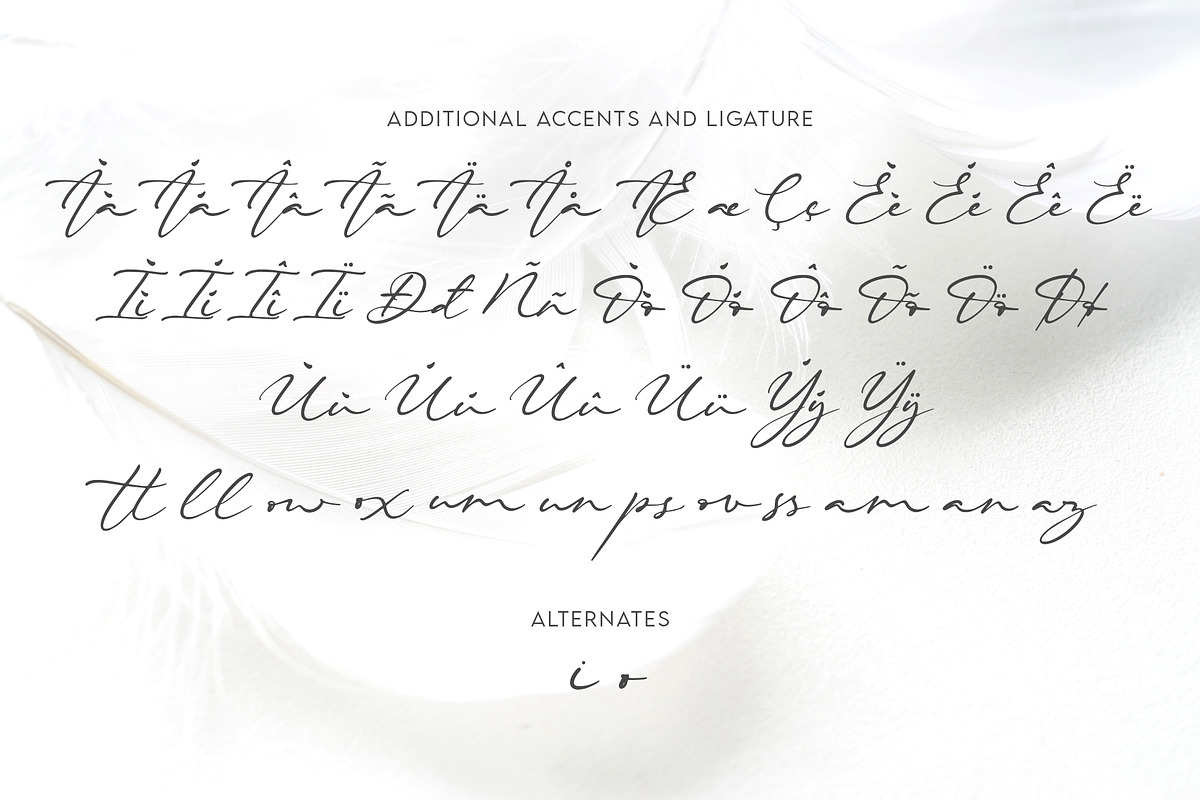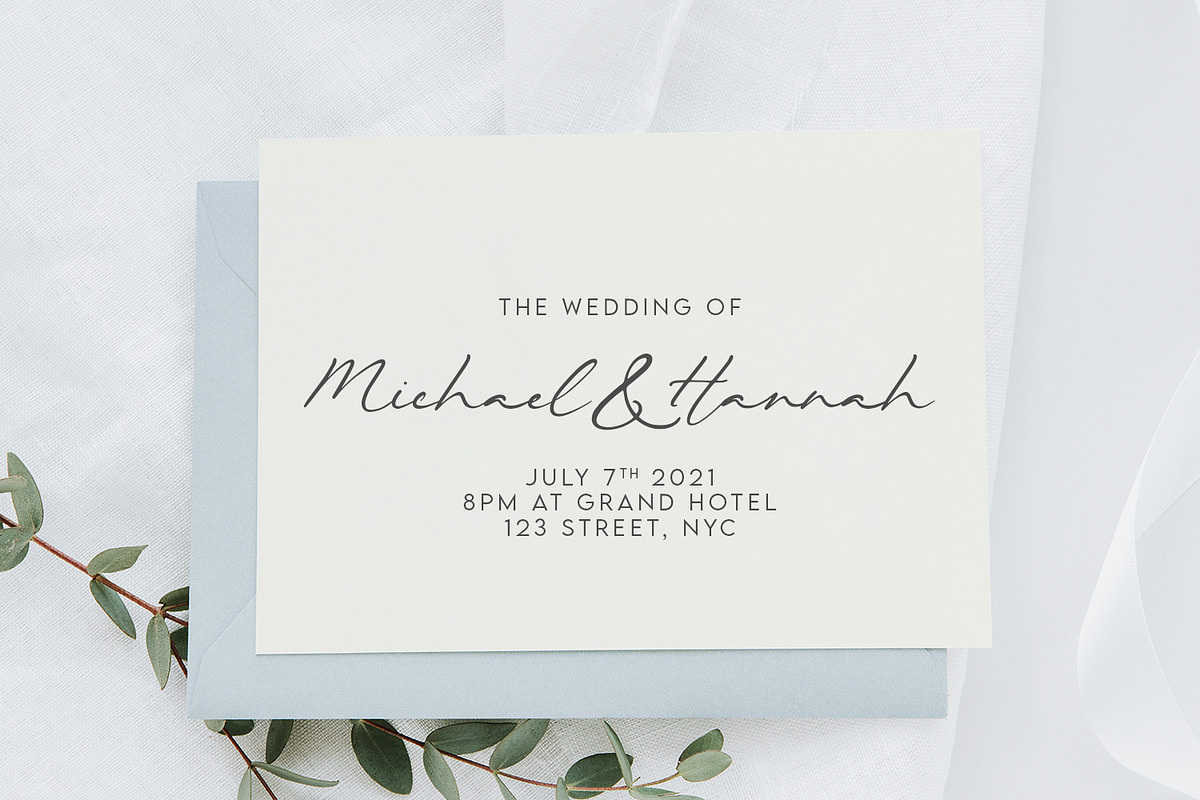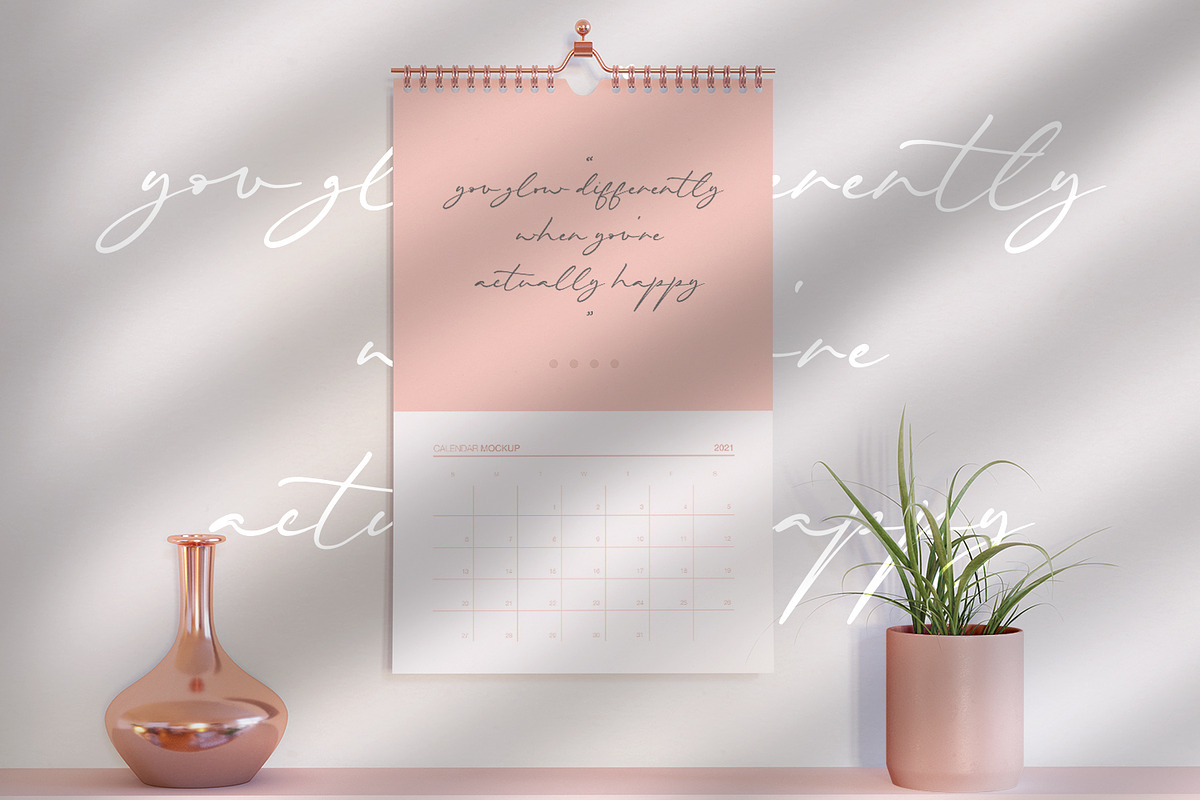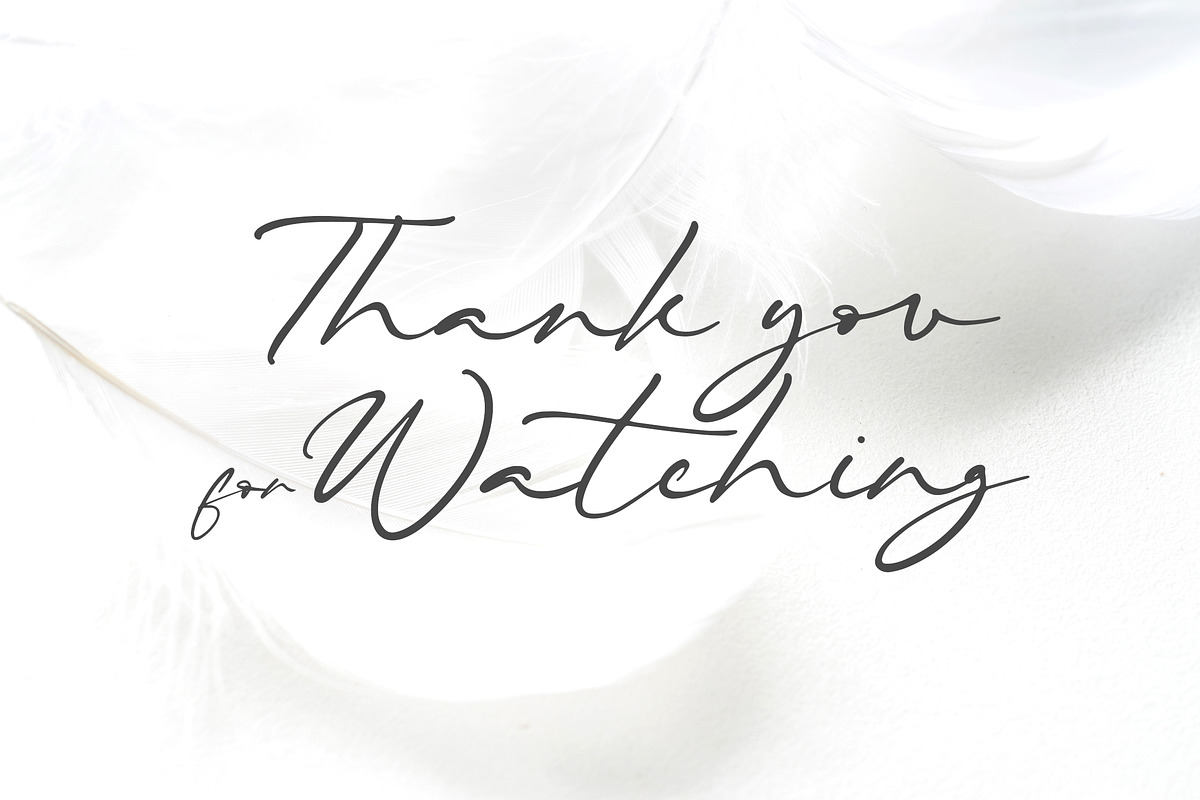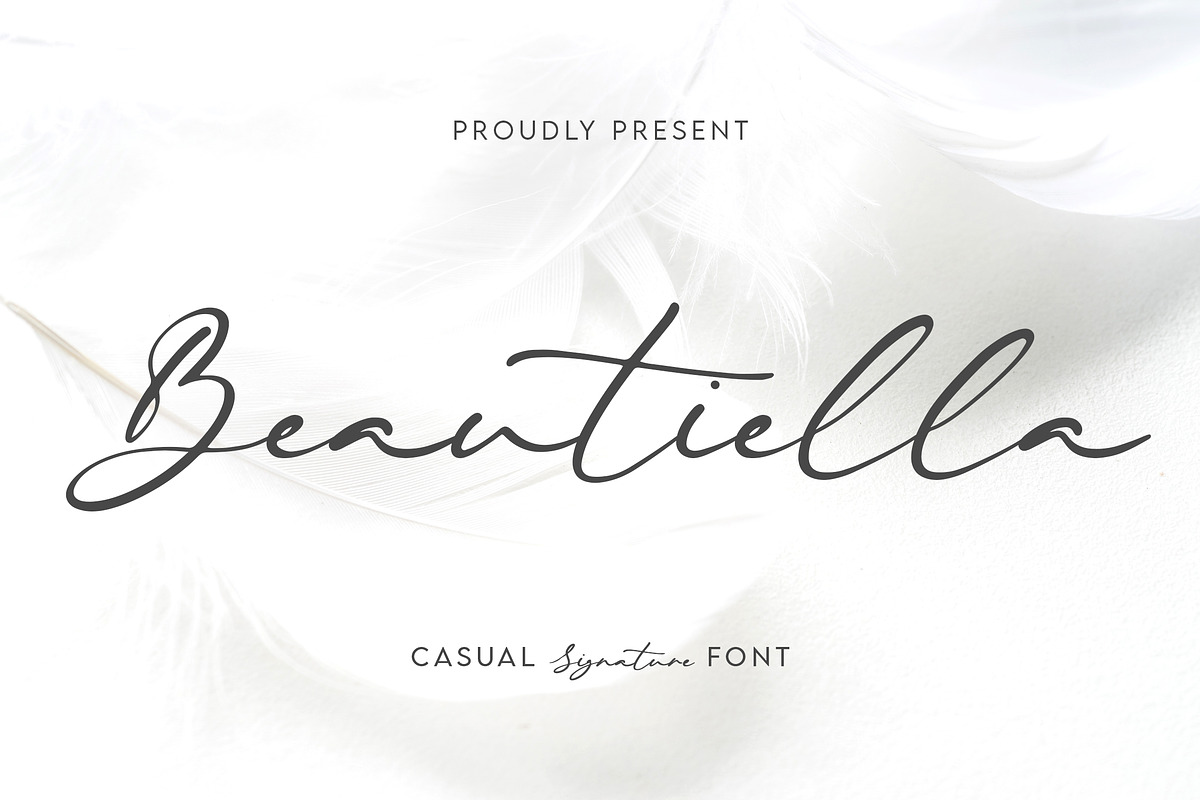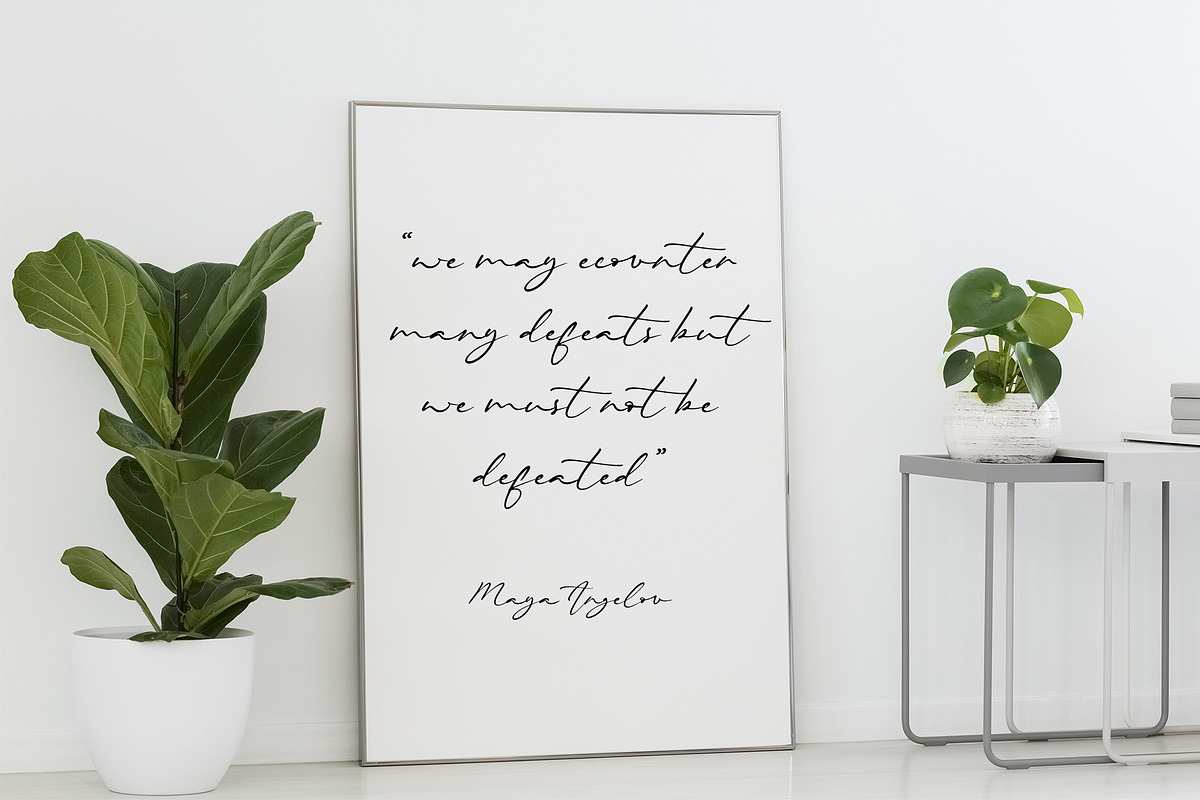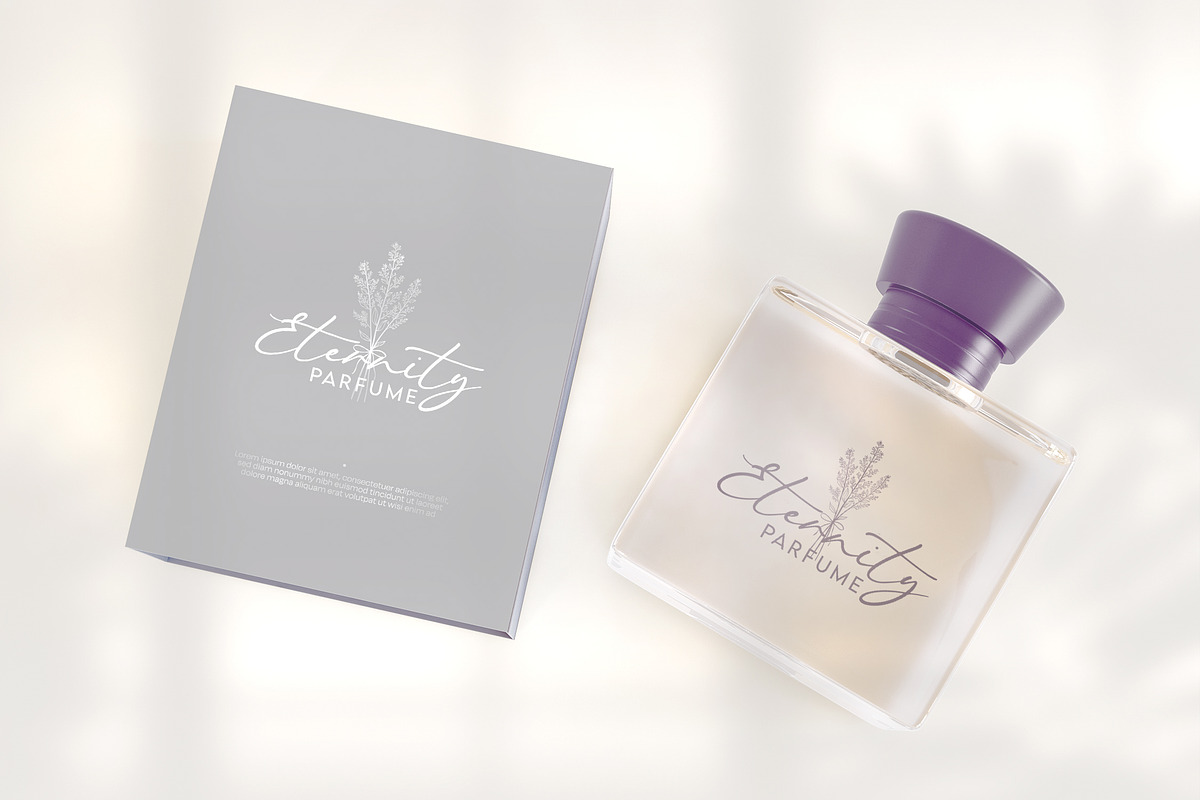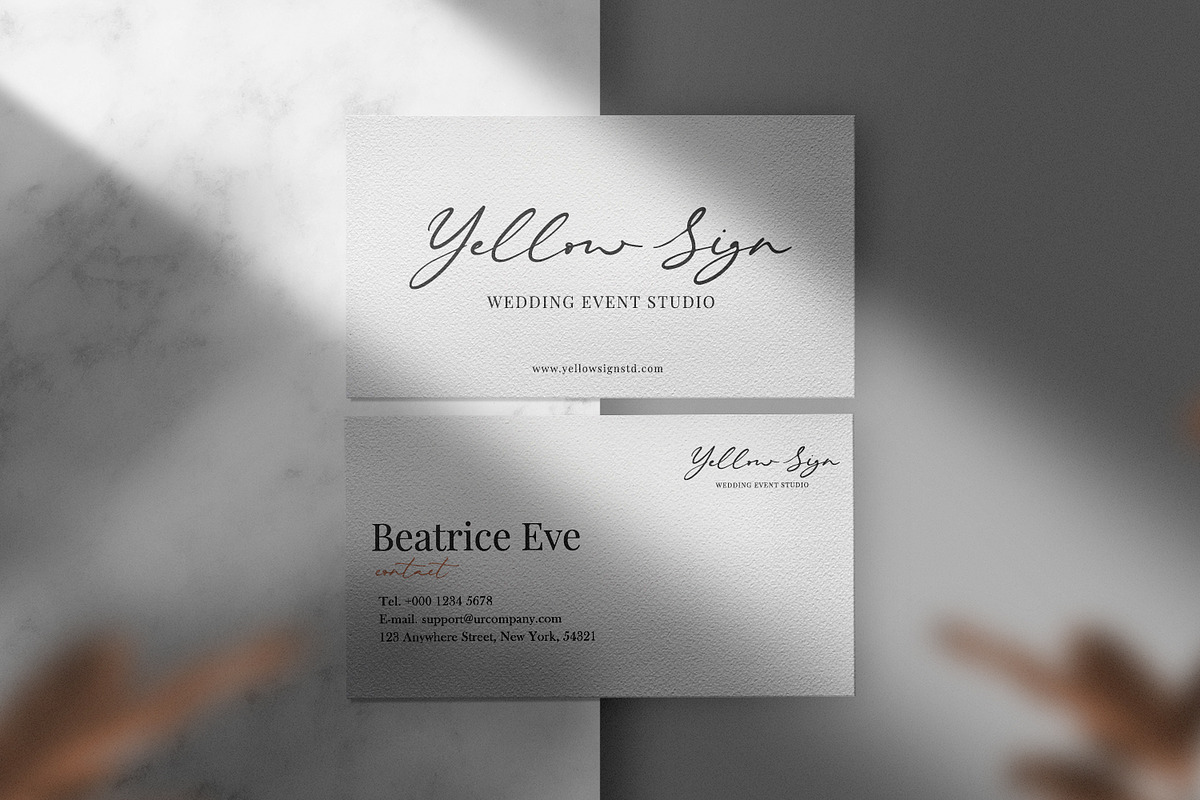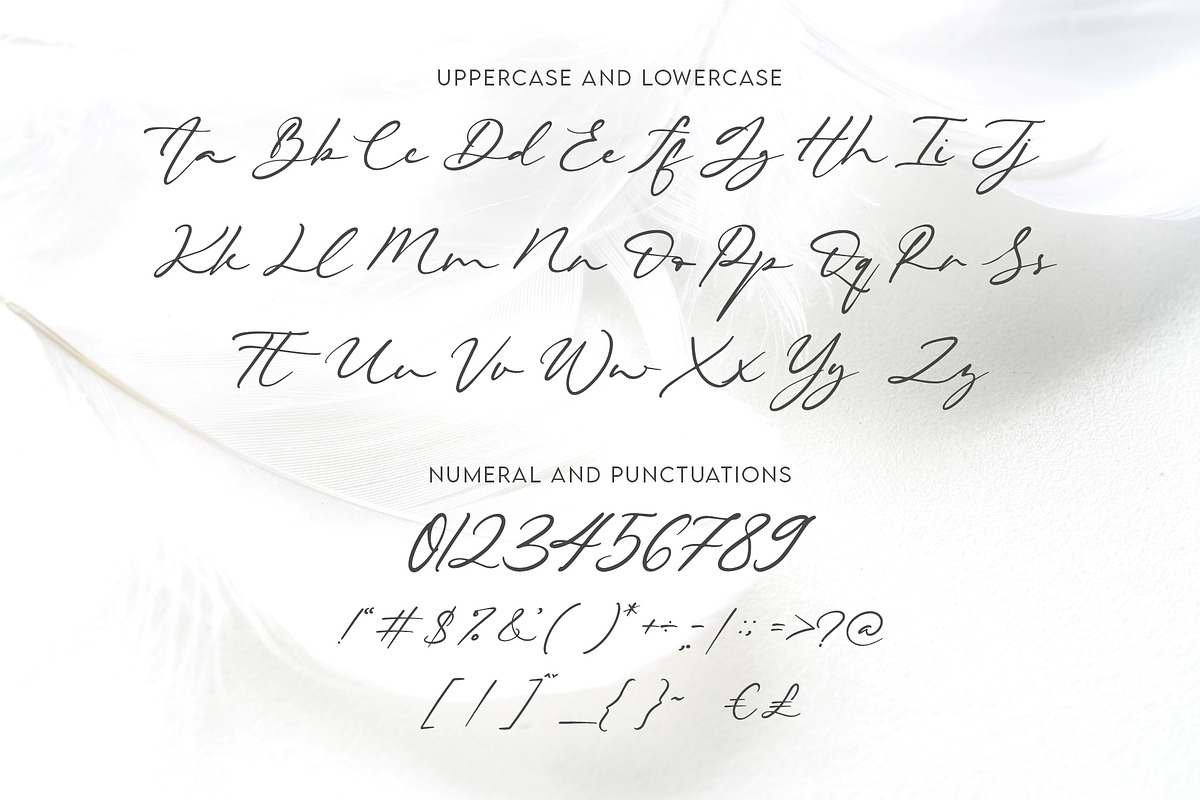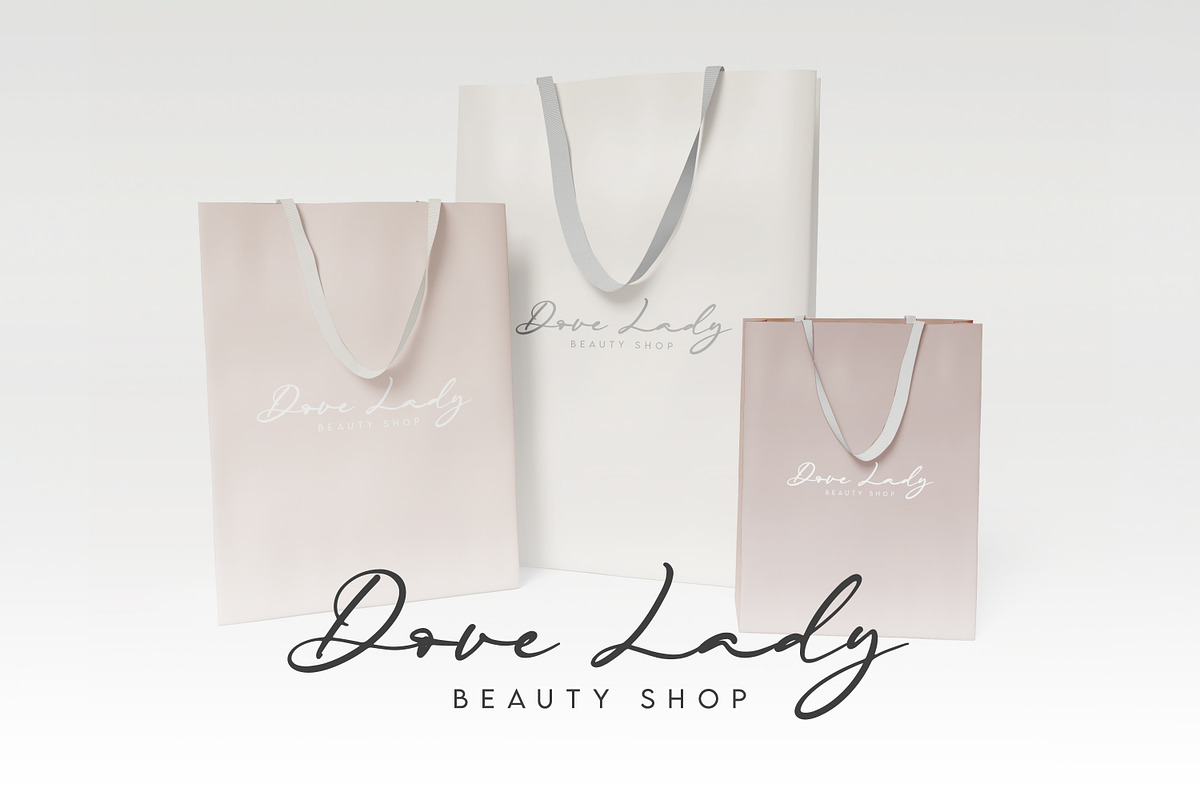
Beautiella - Casual Signature Script
Introducing Beautiella - Casual Signature Script is a Quality script that is written casually and quickly with 12 ligature. Letters are made with Sign on paper. Then scanned and carefully drawn into vector format.
Beautiella is perfect for homeware designs,branding projects, Logo, design, Quotes, Product packaging, Photography, Watermark
- Alternate glyphs